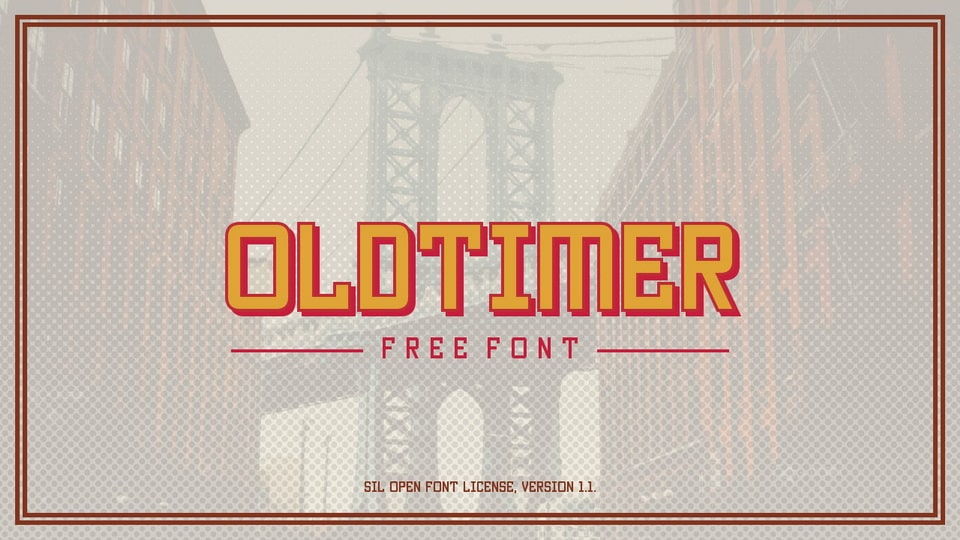
Download Oldtimer font, a retro style sans serif typeface with geometric structure. The font is perfect for signages, magazine headlines, posters and packaging.